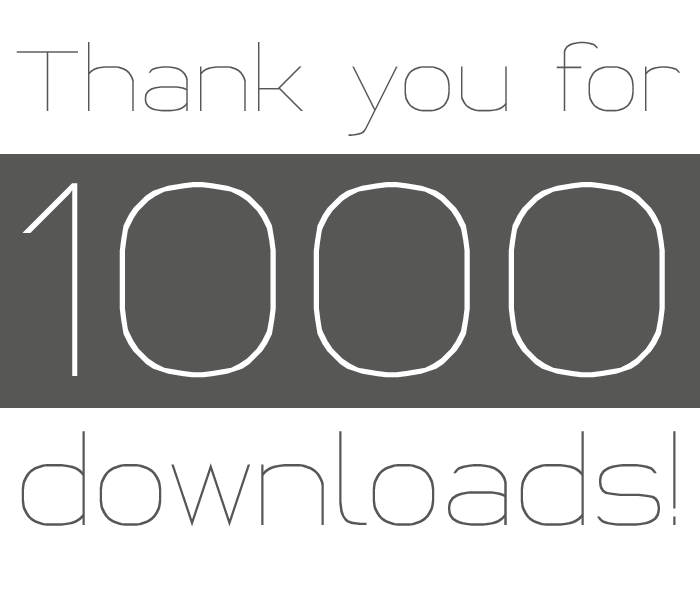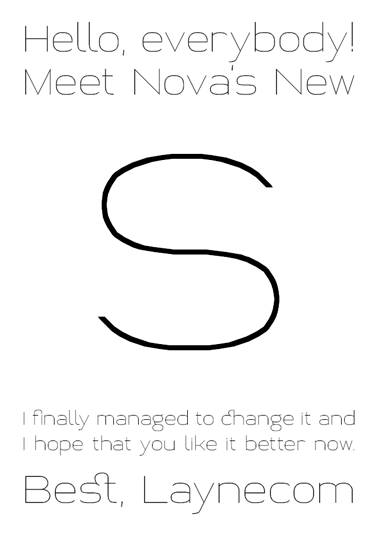
This one has been called Nova. That is simply due to the fact that the letters A, N, O, and V were the first that I tried out when starting this typeface.
Auf den ersten Blick:
Asterisk ist vielleicht ein bißchen zu zierlich?
Dem Bogen vom "t" und "l" würde ich vielleicht ein wenig mehr Spannung verleihen; ist vielleicht ein wenig zu ausschweifend ( wie auch der Oberschwung vom "a") Er nimmt etwas zu sehr Dynamik aus der sont gut fließenden Gestaltung. Die Ligaturen sind sehr fein. Ebenso das "ß" Alles in allem erinnert es mich schon ein wenig an meine db Sitcker-Serie — nur etwas breiter : )
I made the characters deliberately wide (extended) but maybe you are right that the dynamics are better with narrower l and t. Especially when I look at the ala bit in one word.
Virtually flawless. I like what Luc Devroye has to say about Nova Thin Extended: ”this hairline sans is a tour de force---it is the first successful hairline sans face ever made by anyone using FontStruct”. Ok, he probably got that last part wrong, but the first part is spot on! ;)
I go back and forth on the design of the capital S. It definitely works in context and holds up quite well at large sizes... But the horizontal spine still gives me pause. Would you consider a more sinuous, less squared design? Easier said than done, I know. Lastly, I think your w would benefit from widening.
I love this font, but I don't like the "Extended" feature of it. Can you make a similar copy with it not extended? It's great otherwise, and I'd probably use it.
At first, this was planned as family, but I soon realized that this was too ambitious. A Nova Thin would not be created by simply leaving out bits here and there. As j4s13 said, it would have to be redone. Sorry, but I don't have the time for that.
Auf den ersten Blick:
Asterisk ist vielleicht ein bißchen zu zierlich?
Dem Bogen vom "t" und "l" würde ich vielleicht ein wenig mehr Spannung verleihen; ist vielleicht ein wenig zu ausschweifend ( wie auch der Oberschwung vom "a") Er nimmt etwas zu sehr Dynamik aus der sont gut fließenden Gestaltung. Die Ligaturen sind sehr fein. Ebenso das "ß" Alles in allem erinnert es mich schon ein wenig an meine db Sitcker-Serie — nur etwas breiter : )
I made the characters deliberately wide (extended) but maybe you are right that the dynamics are better with narrower l and t. Especially when I look at the ala bit in one word.
I go back and forth on the design of the capital S. It definitely works in context and holds up quite well at large sizes... But the horizontal spine still gives me pause. Would you consider a more sinuous, less squared design? Easier said than done, I know. Lastly, I think your w would benefit from widening.
All said: 10/10!
Concerning the S... I understand your concern. Must think about it. Since the extended variant requires a bit of width... Well, let me think about it.
It took 11 months roughly to do this font. It would have to be basically redone so I'm not so sure.
At first, this was planned as family, but I soon realized that this was too ambitious. A Nova Thin would not be created by simply leaving out bits here and there. As j4s13 said, it would have to be redone. Sorry, but I don't have the time for that.